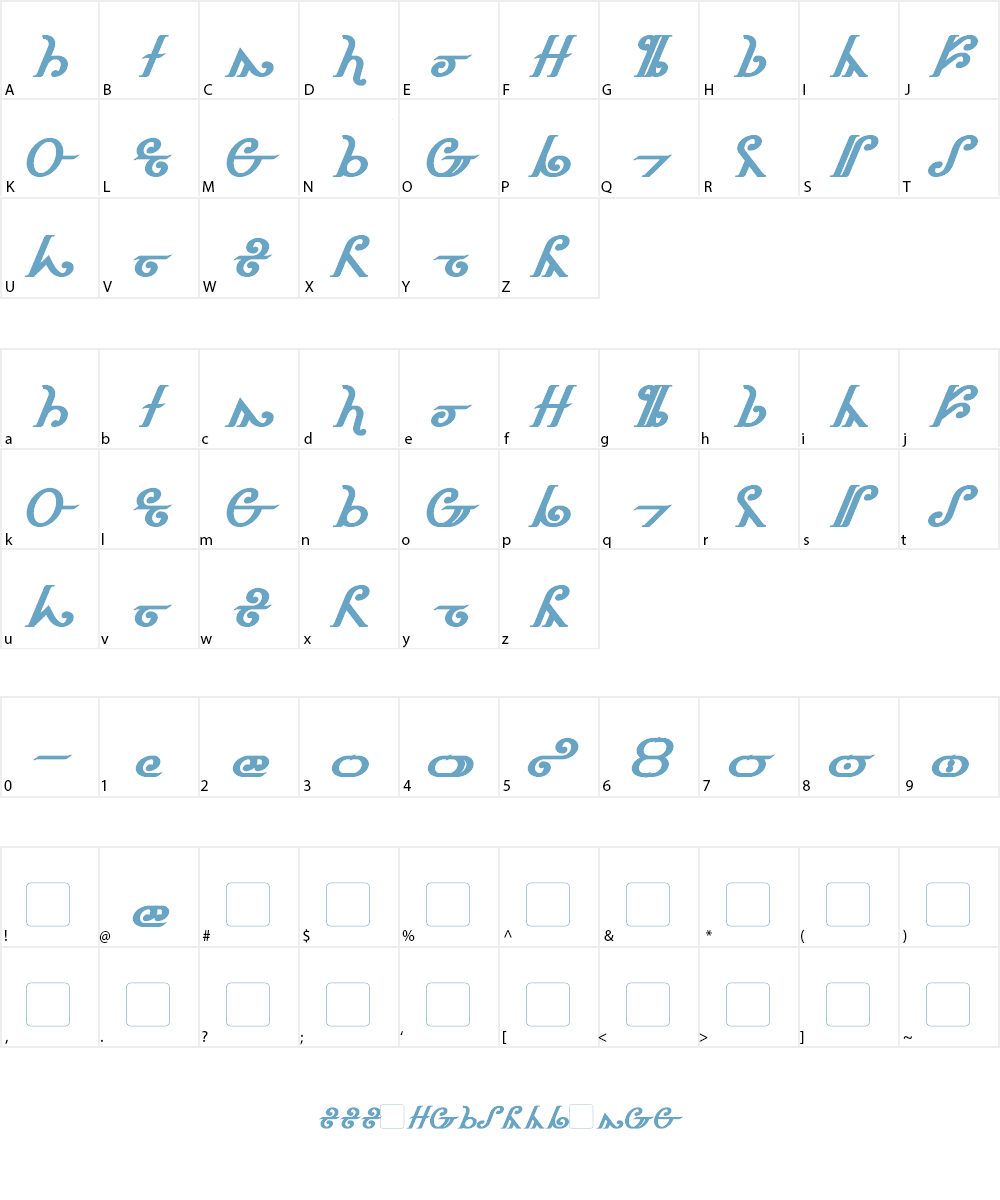
Thorass is based on the common “human” language presented in Wizards of the Coast’s Forgotten Realms (third edition). It is a light, runic face with curled flourishes, suitable for fantasy calligraphy. Includes all canon glyphs. Includes regular, bold, italic, and bold-italic weights.